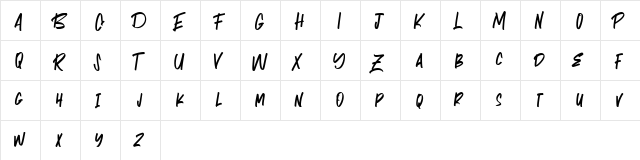
MATHERNAL Free Regular
| Foundry | MaulanaCreative |
| Designer | MaulanaCreative |
Design Context for MATHERNAL Free Typeface
MATHERNAL Free is a composed and adaptable typeface that performs quietly and consistently across a wide range of design contexts.